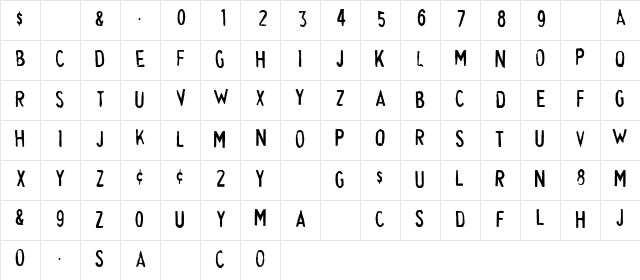
Cheapskate Fill
Design Context for Cheapskate Typeface
Cheapskate takes a measured approach to typography — its balanced proportions and neutral character make it a reliable workhorse for both digital and print work.